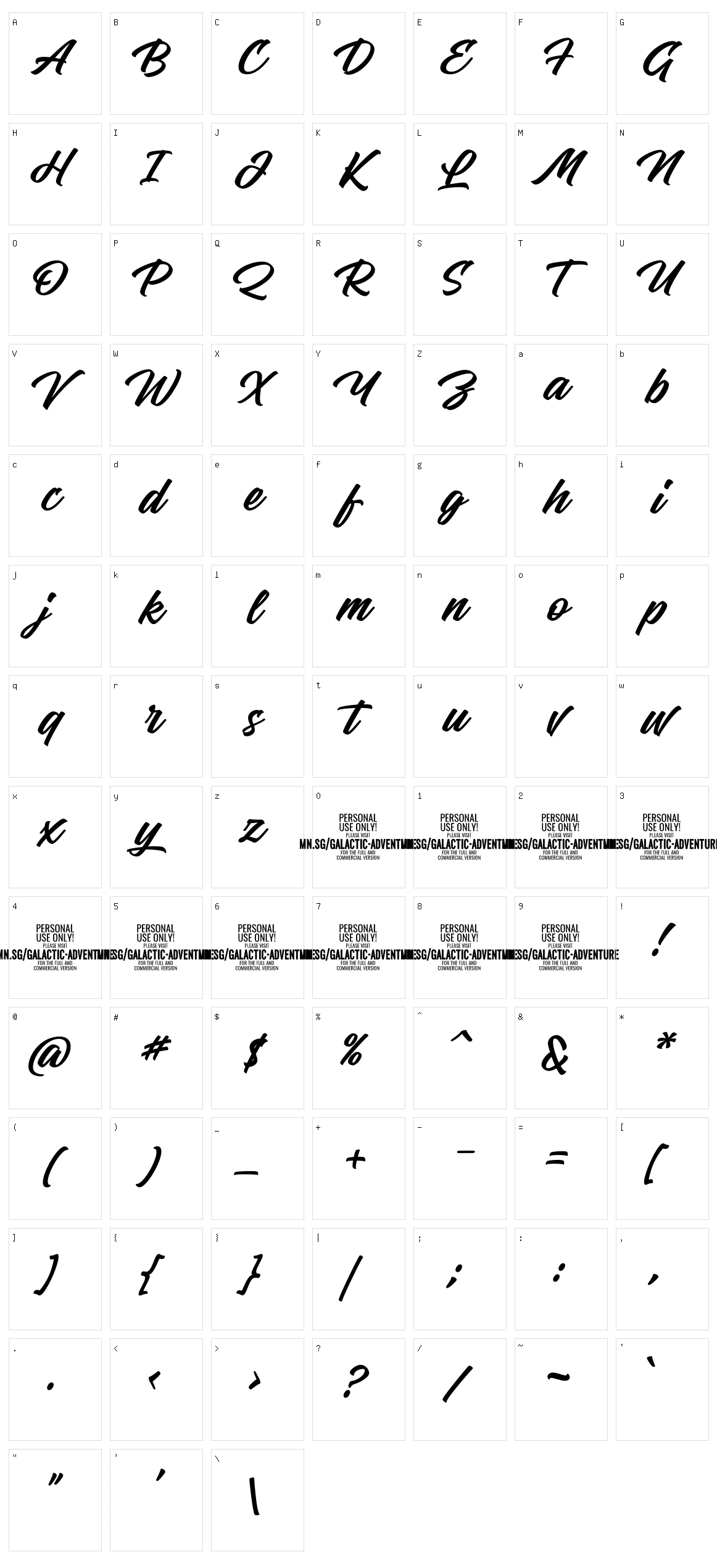
Galactic Adventure is a calligraphic brush font with a retro twist, inspired by the expressive movement and boldness of vintage advertisements. This font effortlessly combines the heavy, dynamic strokes of brush calligraphy with the cool, adventurous spirit of the past, making it an ideal choice for merchandise, branding, and creative projects that demand a touch of retro charm.
Use underscore _ to make a underline.
Example: Co_ol
Use multiple underscores for longer swashes.
Example: Super____human
The Galactic Adventure font family features three distinct styles to suit your design needs: Regular, Bold, and their respective Italics. These versatile options allow you to capture the essence of the past while adapting to modern aesthetics, providing endless possibilities for your creations.
The font is built with advanced OpenType functionality and has a guaranteed top-notch quality, containing stylistic and contextual alternates, ligatures and more features; all to give you full control and customizability.
It has extensive lingual support, covering all Latin-based languages, from Northern Europe to South Africa, from America to South-East Asia. It contains all characters and symbols you'll ever need, including all punctuation and numbers.